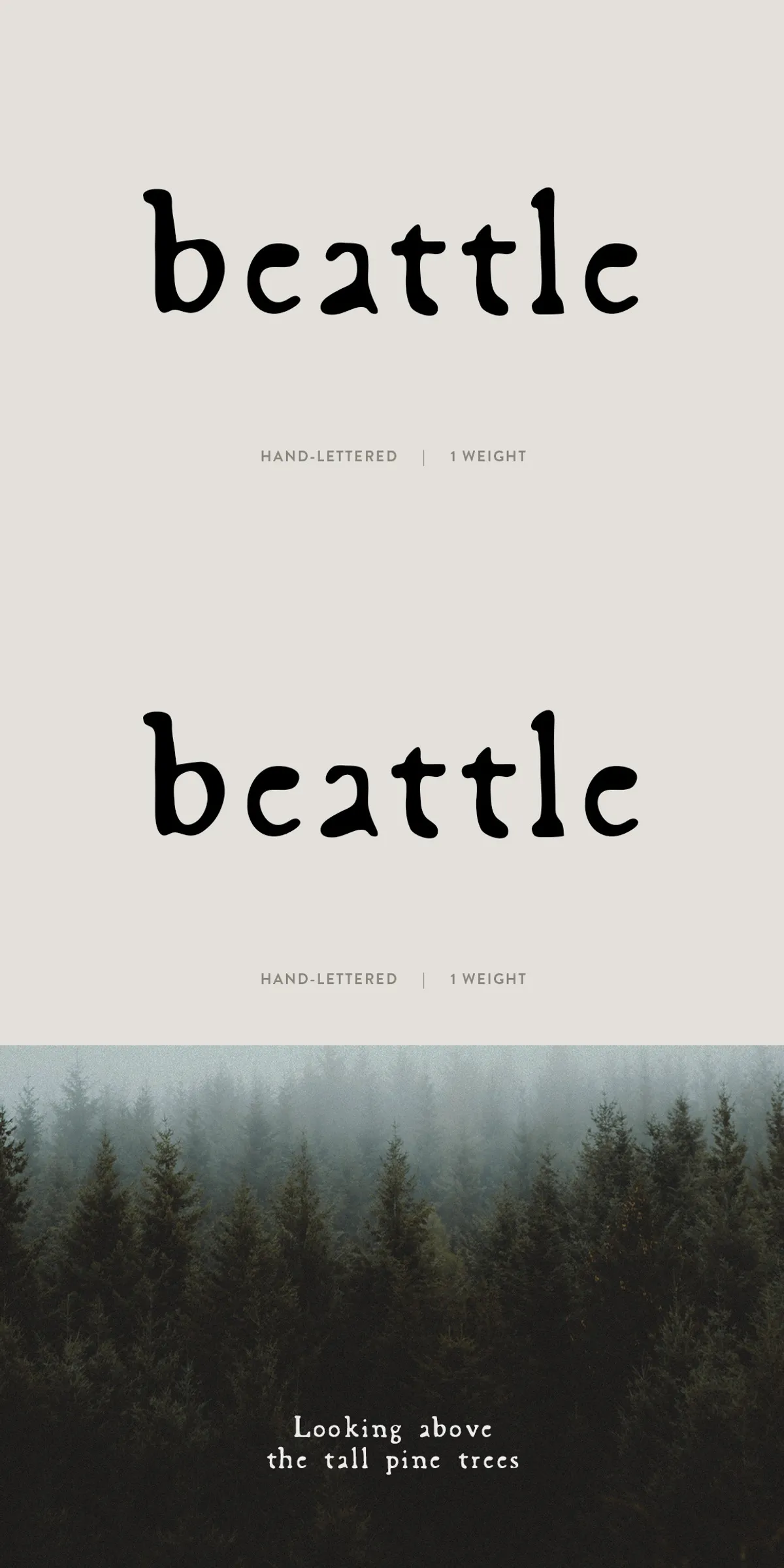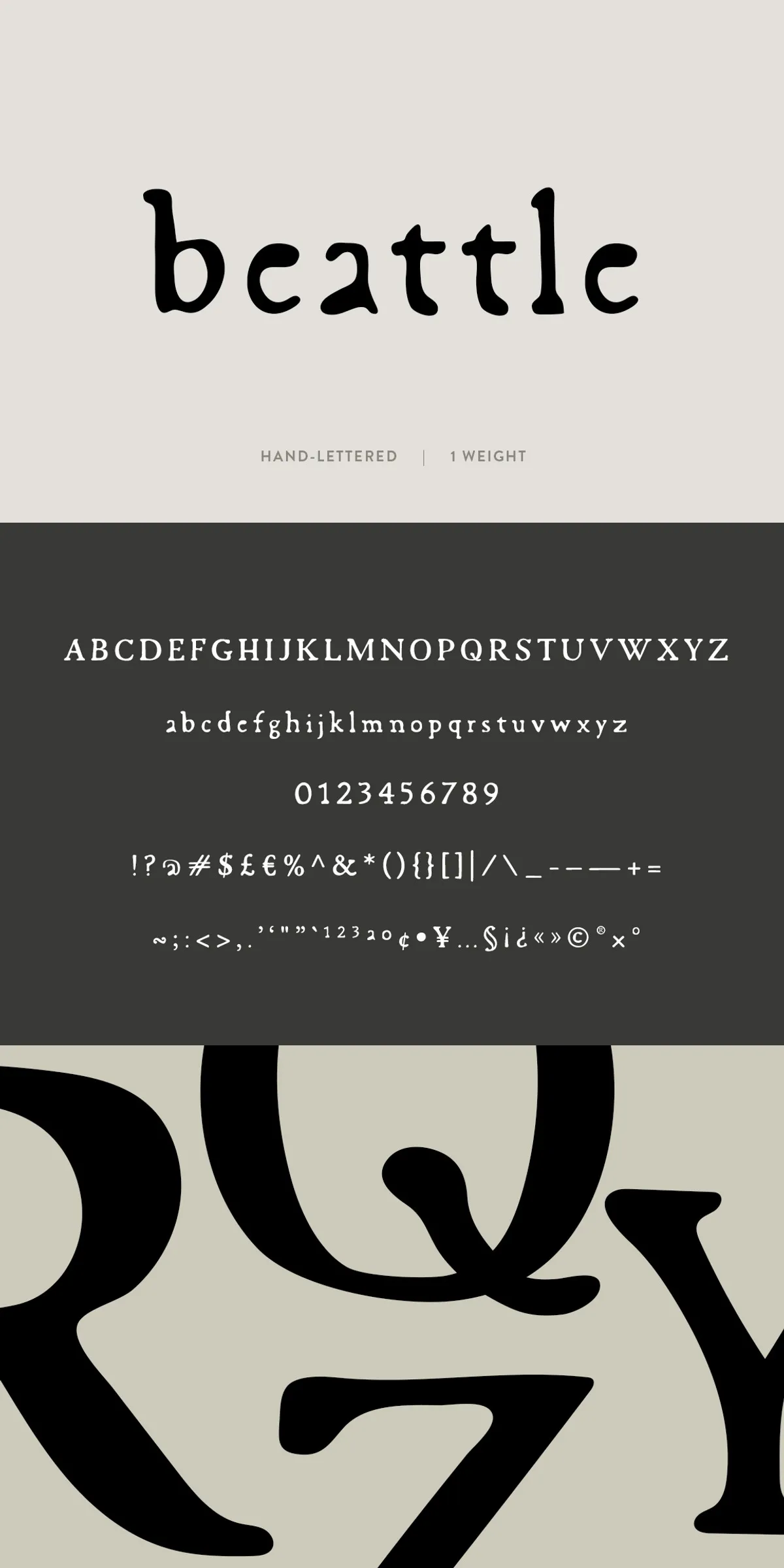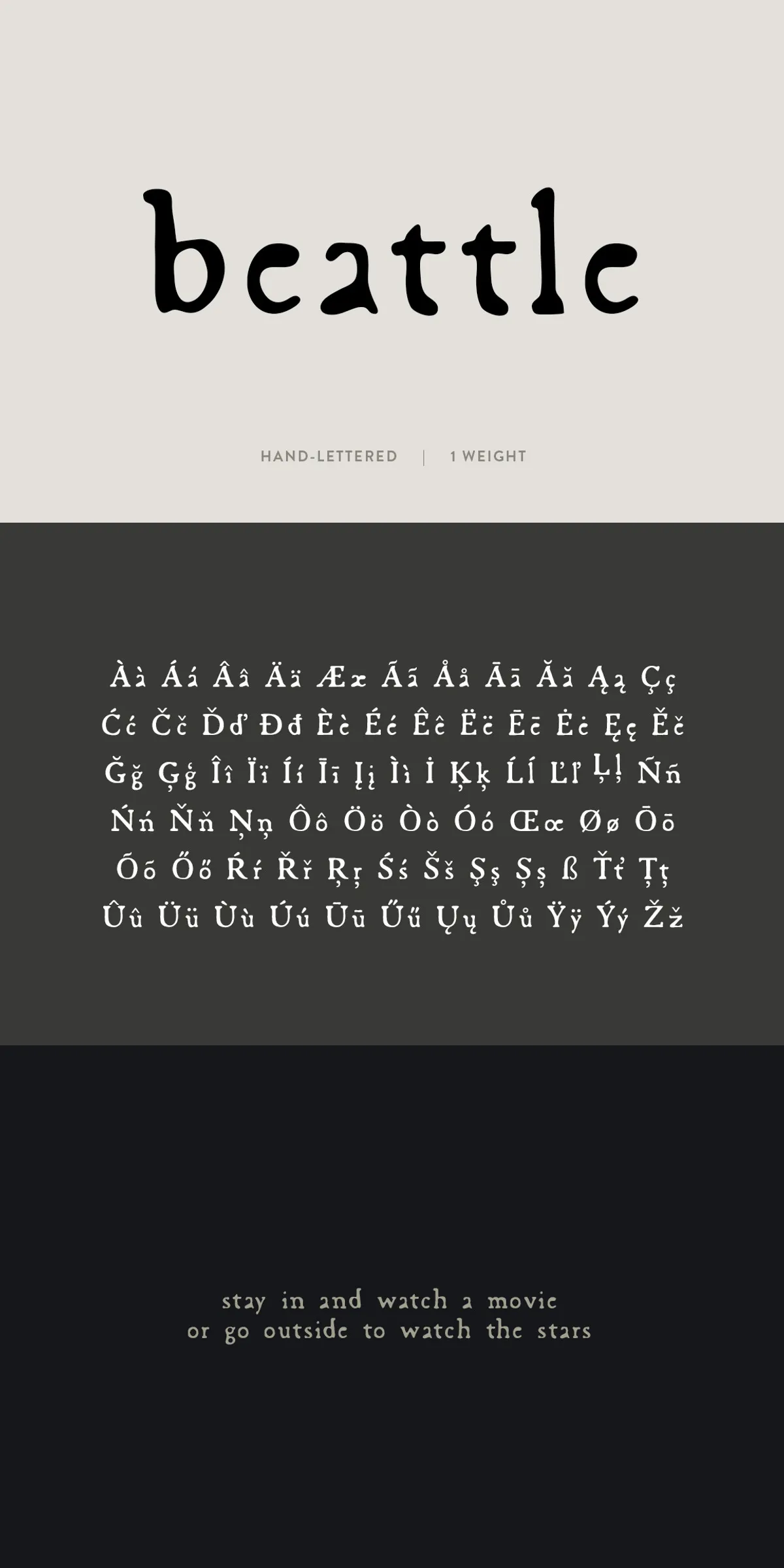
Beattle channels a vintage aesthetic while remaining fully functional for modern design workflows. The typeface intentionally mirrors the slightly irregular, inky impression of a well-used typewriter, giving headlines, logos, and packaging an instant handcrafted presence. Its balanced proportions and subtle organic details ensure strong legibility even as it conveys personality and warmth. Use Beattle to give projects a sense of history without sacrificing contemporary clarity.
Handcrafted Digital Origins That Enhance Visual Texture
Although created digitally, Beattle preserves a human touch. The letterforms embrace small variations and ink-like roughness that read as authentic rather than distressed. These intentional imperfections create visual texture and avoid the mechanical flatness of many modern serif designs. Designers will find that Beattle performs well both in tight headline compositions and in larger display uses where the ink-like edges become an expressive feature.
Versatile Weights And Styles For Broad Applications
Beattle supports a wide spectrum of uses, from bold attention-grabbing headlines to subtle, minimal supporting text. The design adapts to different tonal needs: use thicker applications for naturally bold statements, or favor thin spacing for a restrained, minimalist approach. Its adaptability makes it suitable for editorial spreads, brand identities, posters, and product labels, allowing a single family to carry a consistent aesthetic across varied touchpoints.
Comprehensive Character Set For Global Projects
Beattle includes an extensive character set that supports multilingual typography and practical punctuation. The delivered glyphs include uppercase and lowercase letters, accented characters for many European languages, numerals, and a broad range of punctuation and symbols. Designers can confidently deploy Beattle in international projects without sacrificing typographic richness or encountering missing characters during layout work.
Practical Applications Where Beattle Excels
Beattle’s vintage tone and strong readability make it a natural choice for identity systems that seek warmth and authenticity. Use it for brand marks, stationery, and packaging to create a handcrafted impression that reads across physical and digital formats. Editorial designers will appreciate Beattle’s ability to headline with character while maintaining readable body text when paired with neutral, modern serifs or sans-serifs. In packaging and labeling, the ink-like details reinforce tactile and artisanal narratives, enhancing perceived product quality.
Recommended Pairings And Usage Tips
- Pair Beattle with a neutral sans-serif for body copy to highlight contrast and improve long-form readability.
- Reserve the more textured, bold headlines for display sizes where the inked details can register clearly.
- Use consistent tracking and manual kerning for logo and wordmark work to preserve the handcrafted look while ensuring optical balance.
- Test the type at multiple scales and in different print processes to confirm the ink-like texture reproduces as intended.
Included Glyphs And Technical Information
The font package contains a rich set of glyphs and common symbols, ensuring broad usability across projects. The character list covers Latin uppercase and lowercase, extended accented characters, numerals 0–9, and a variety of punctuation and special symbols. For the complete glyph inventory, please refer to the supplied images that illustrate the full character set. This thorough coverage supports multilingual layouts and detailed typographic work.